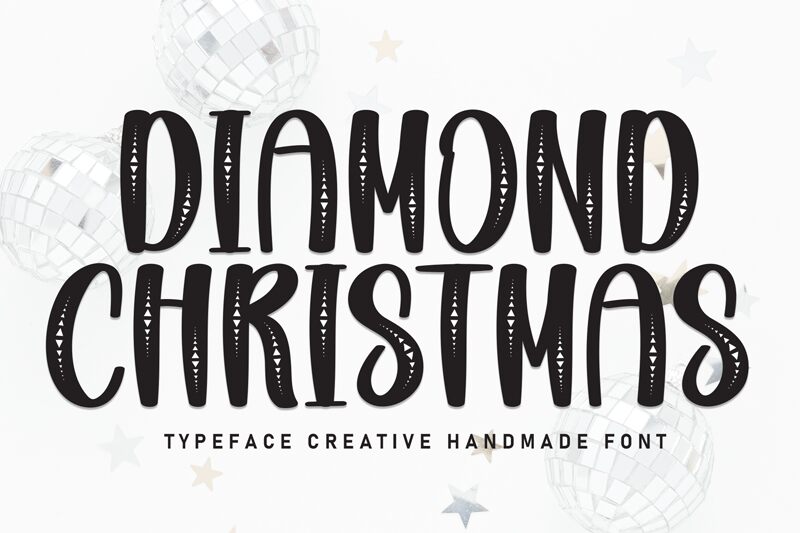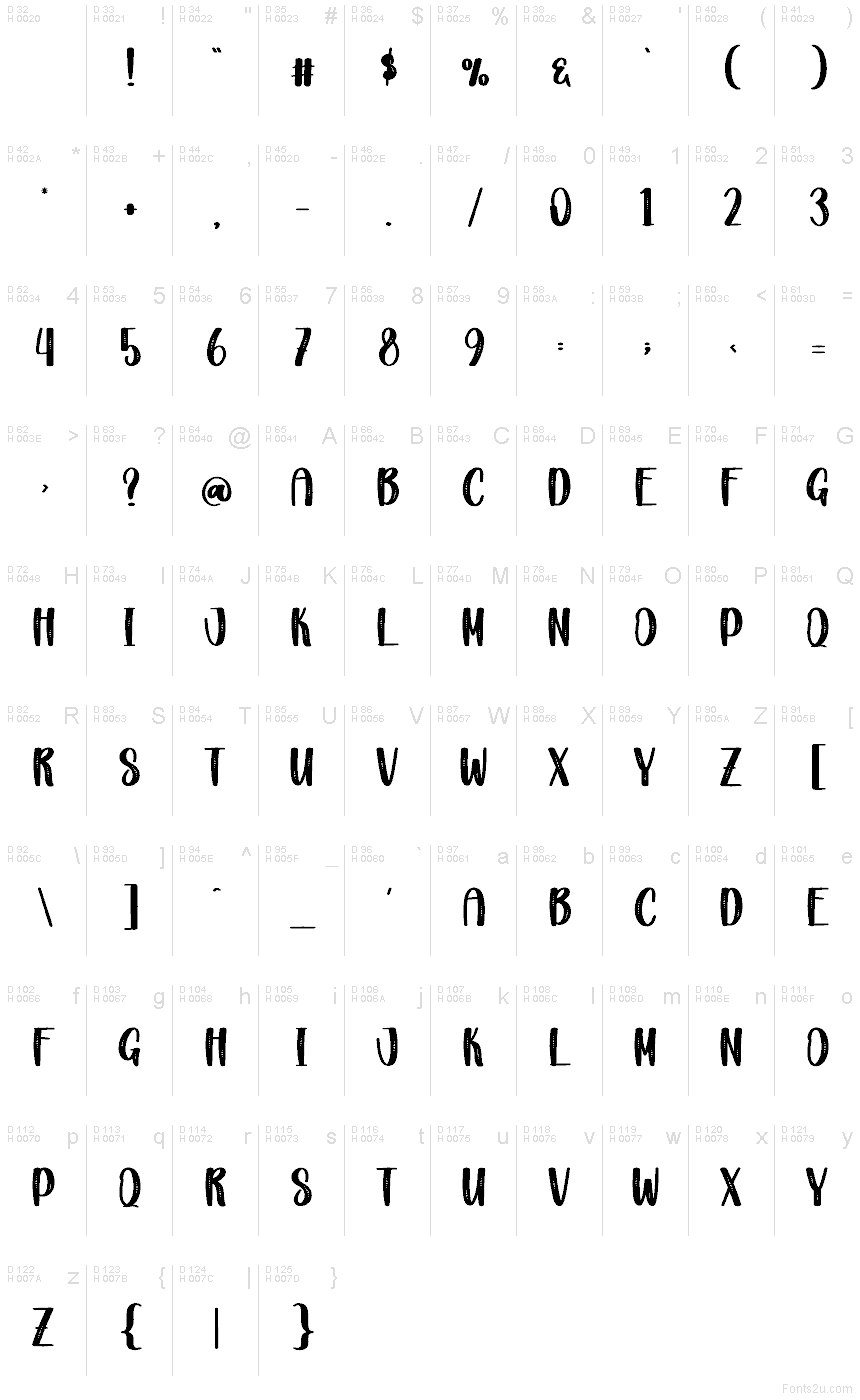
Diamond Christmas
Diamond Christmas font by Scratchones is a free decorative display typeface that captures the sparkle and bustle of the holidays. Tall, narrow letters are packed with dot patterns that feel like twinkling lights or falling snow, while the slightly rough, inky edges keep it warm and hand-crafted rather than slick. It reads like festive lettering brushed onto a shop window on a cold winter night.
Using Diamond Christmas, you can instantly dress up seasonal greeting cards, gift tags, party invitations, holiday posters, social media graphics, and cozy mug or T‑shirt designs. This free font shines when used large so the dotted details can sparkle, and it pairs easily with a clean sans-serif for supporting text to keep your layouts readable and bright.